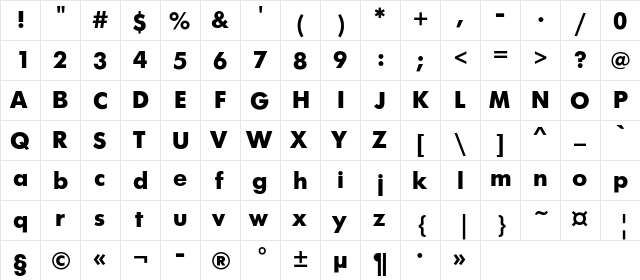
FuturaFuturisC Bold
Design Context for FuturaFuturisC Typeface
FuturaFuturisC channels digital-age aesthetics through its sharp, structured letterforms — ideal for brands that want to signal innovation. The heavy weight commands attention and anchors typographic hierarchies.
Pro Tip: Try FuturaFuturisC with generous letter-spacing in UI labels and navigation — the geometric forms benefit from room to breathe.